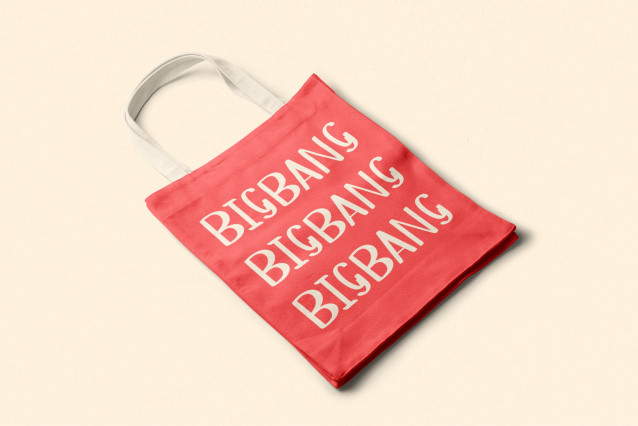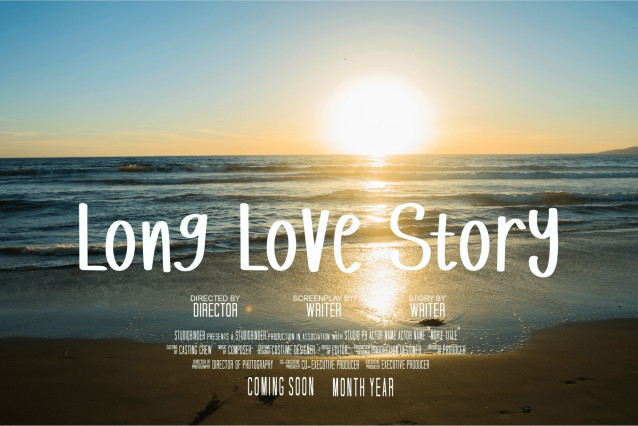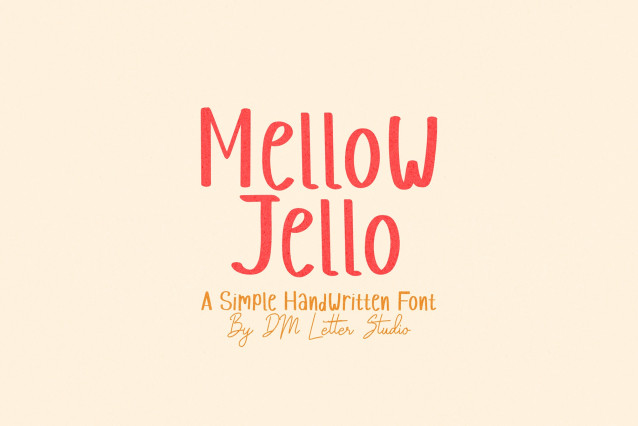
Mellow Jello Font
Mellow Jello is a soft and charming handwriting font with a casual, friendly vibe. Designed to mimic natural penmanship with a smooth, slightly bouncy rhythm, it’s ideal for planners, journals, greeting cards, social media graphics, and children’s products. Its approachable and relaxed feel adds warmth and personality to every design.